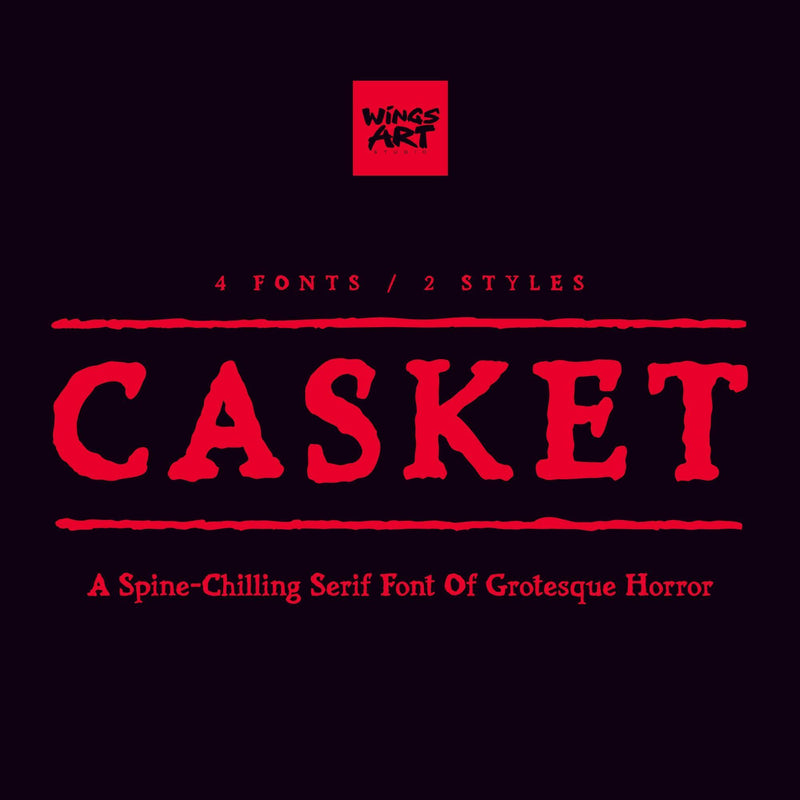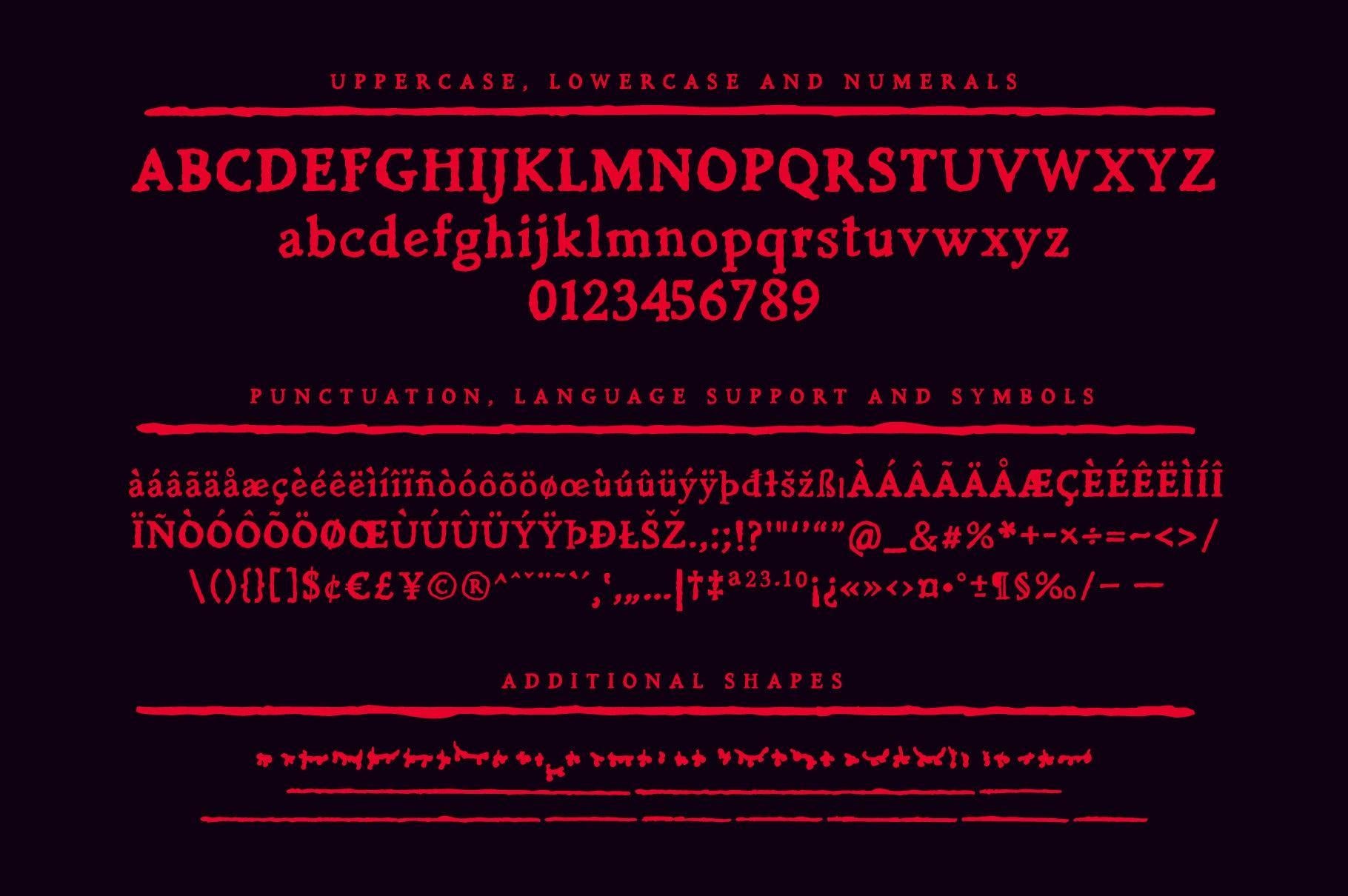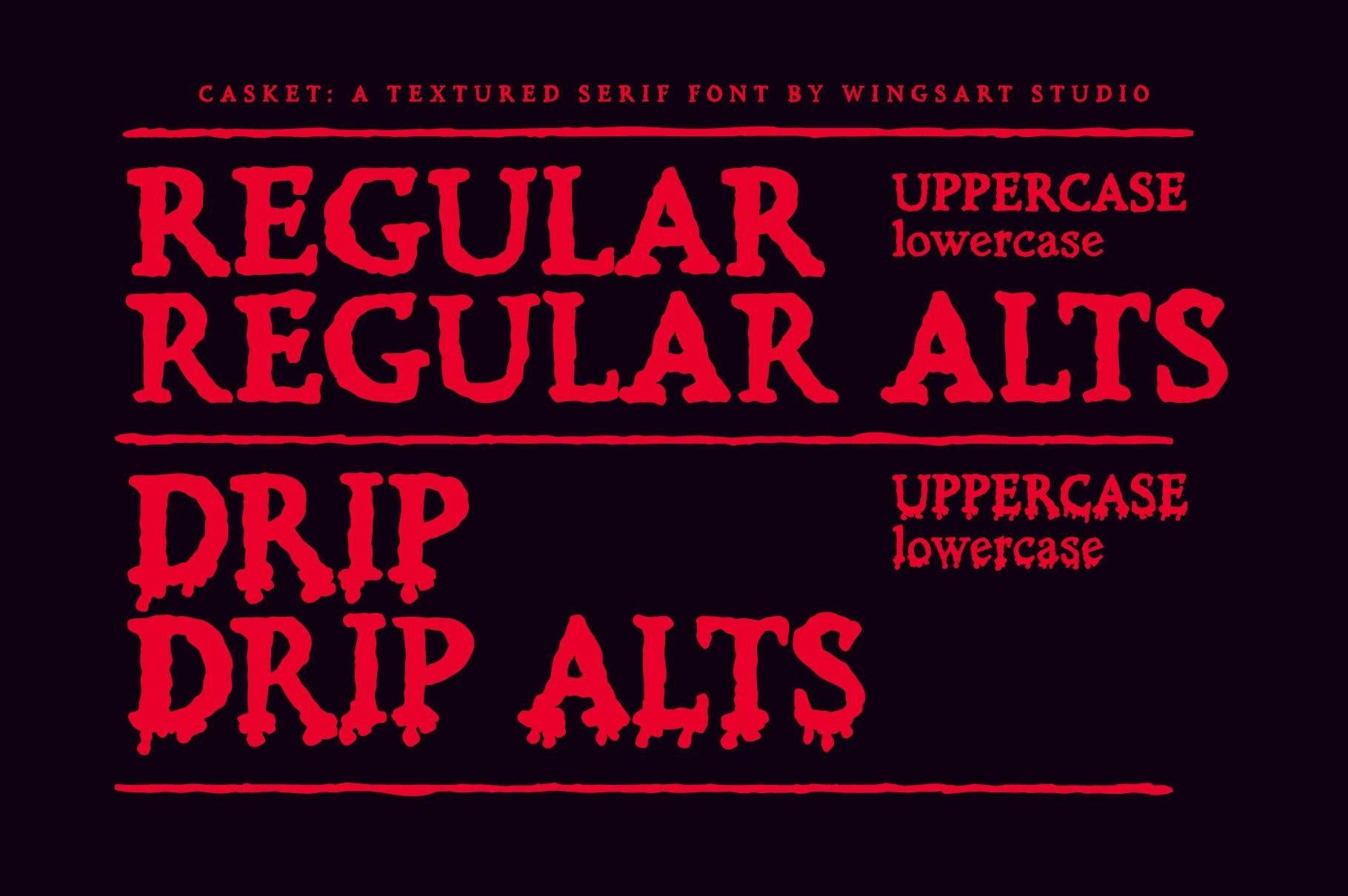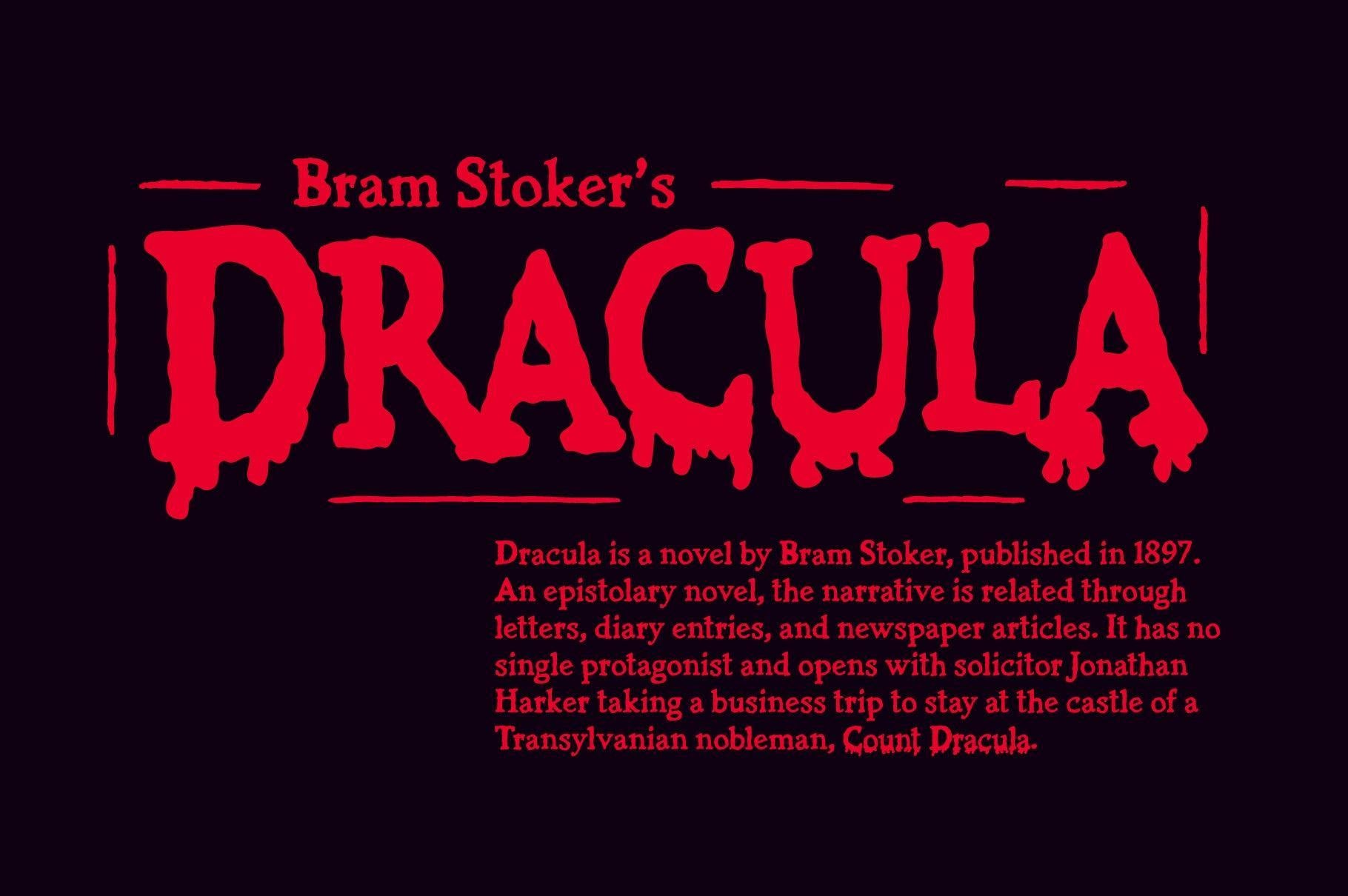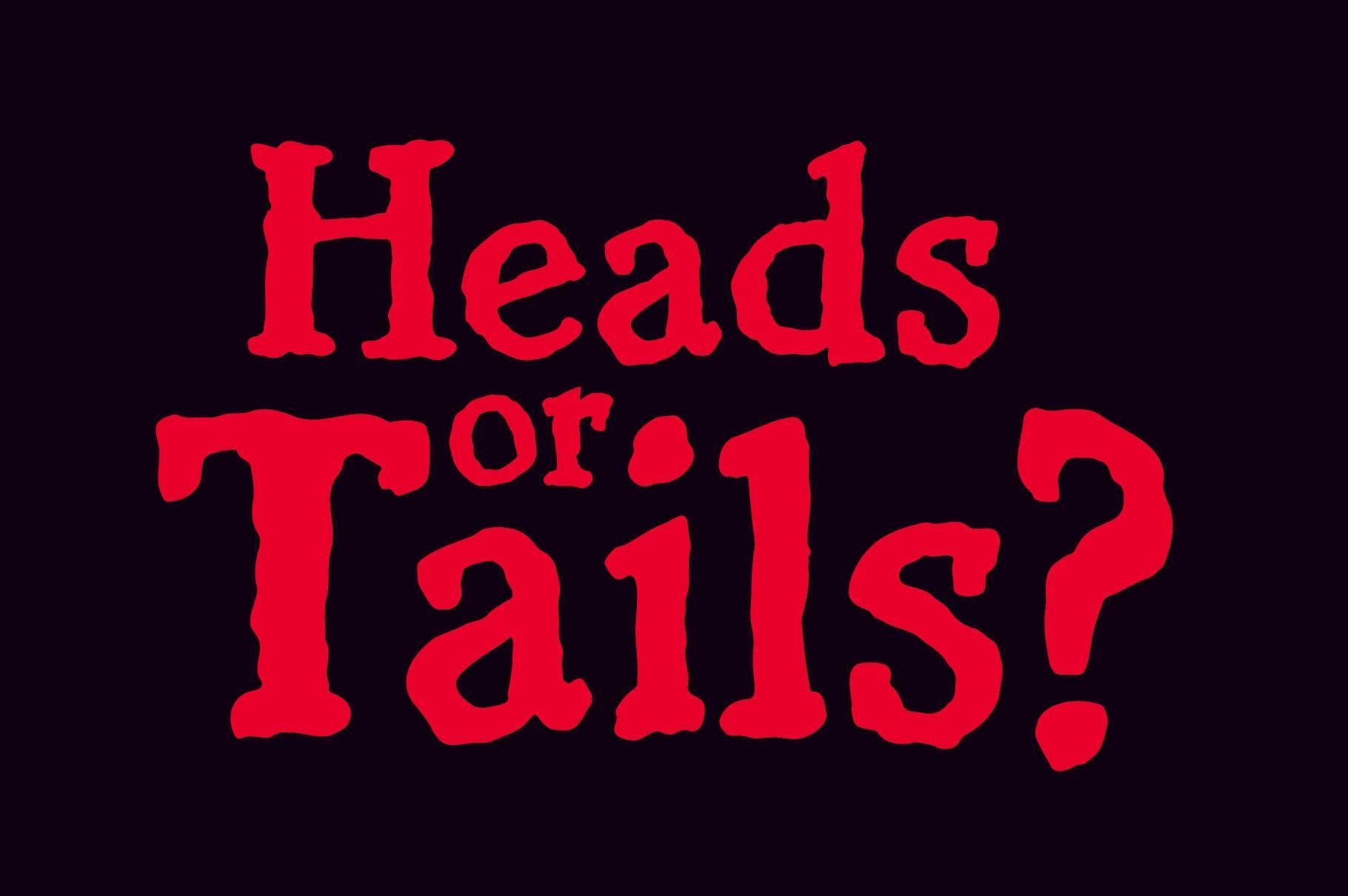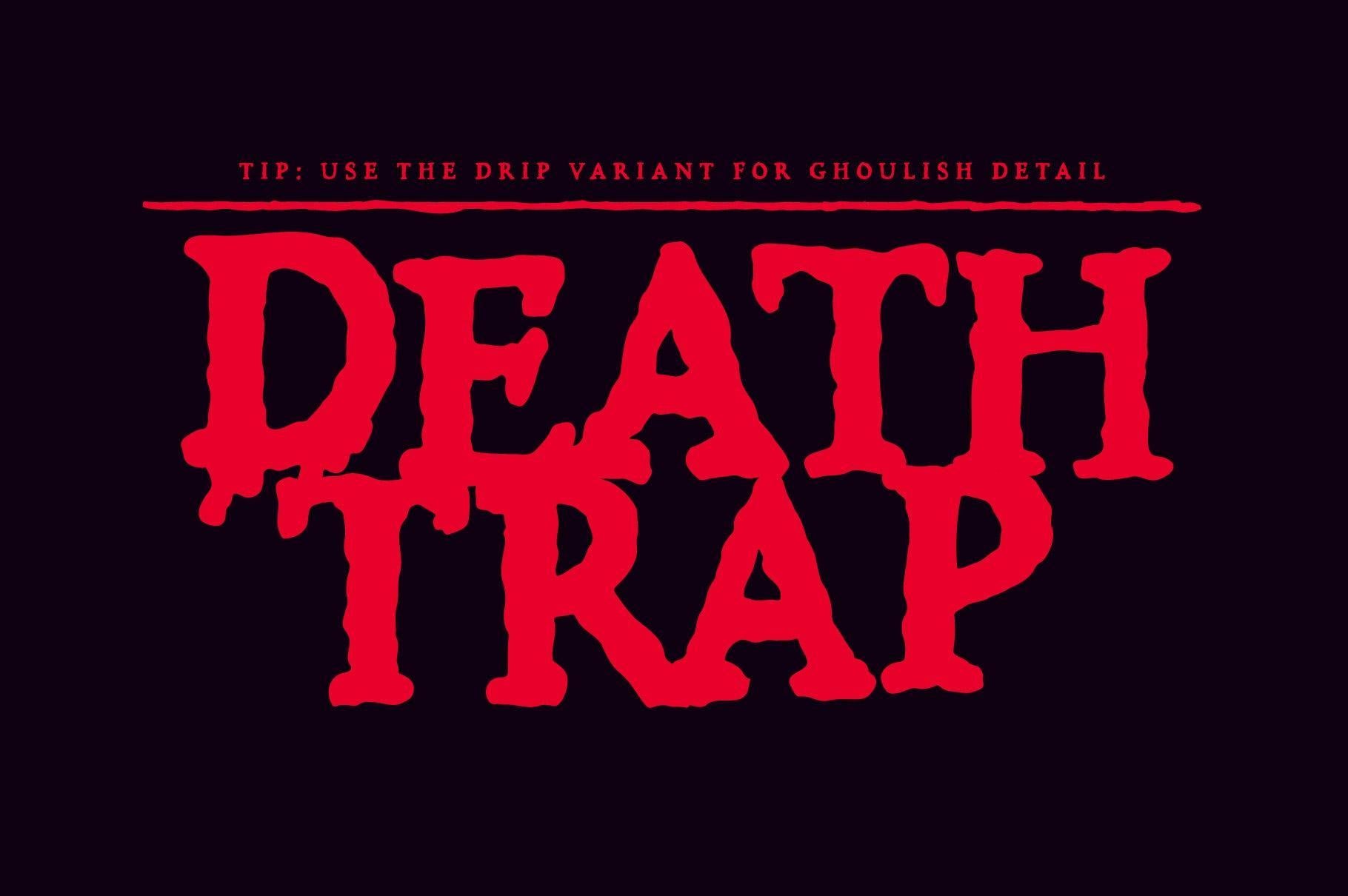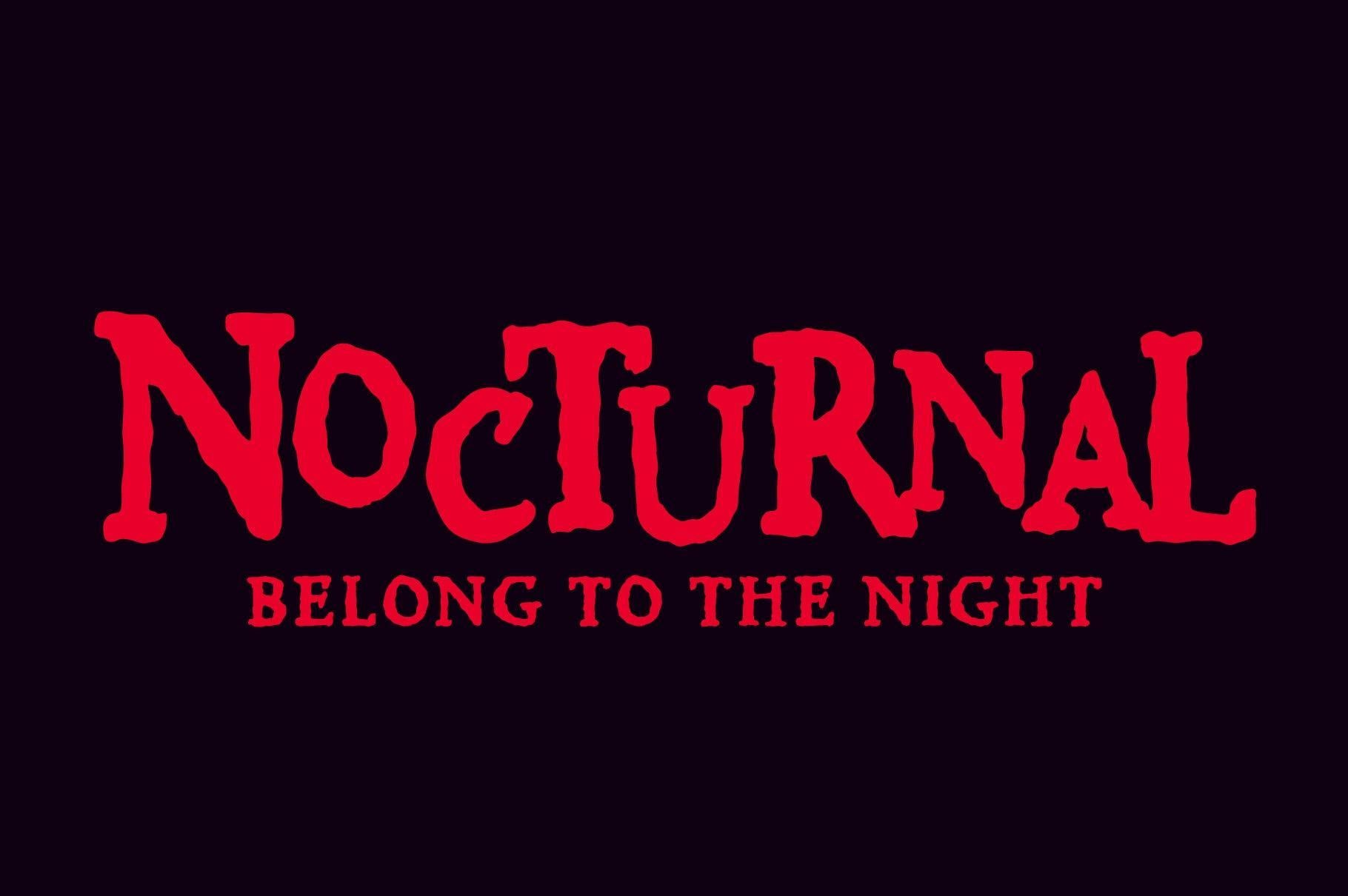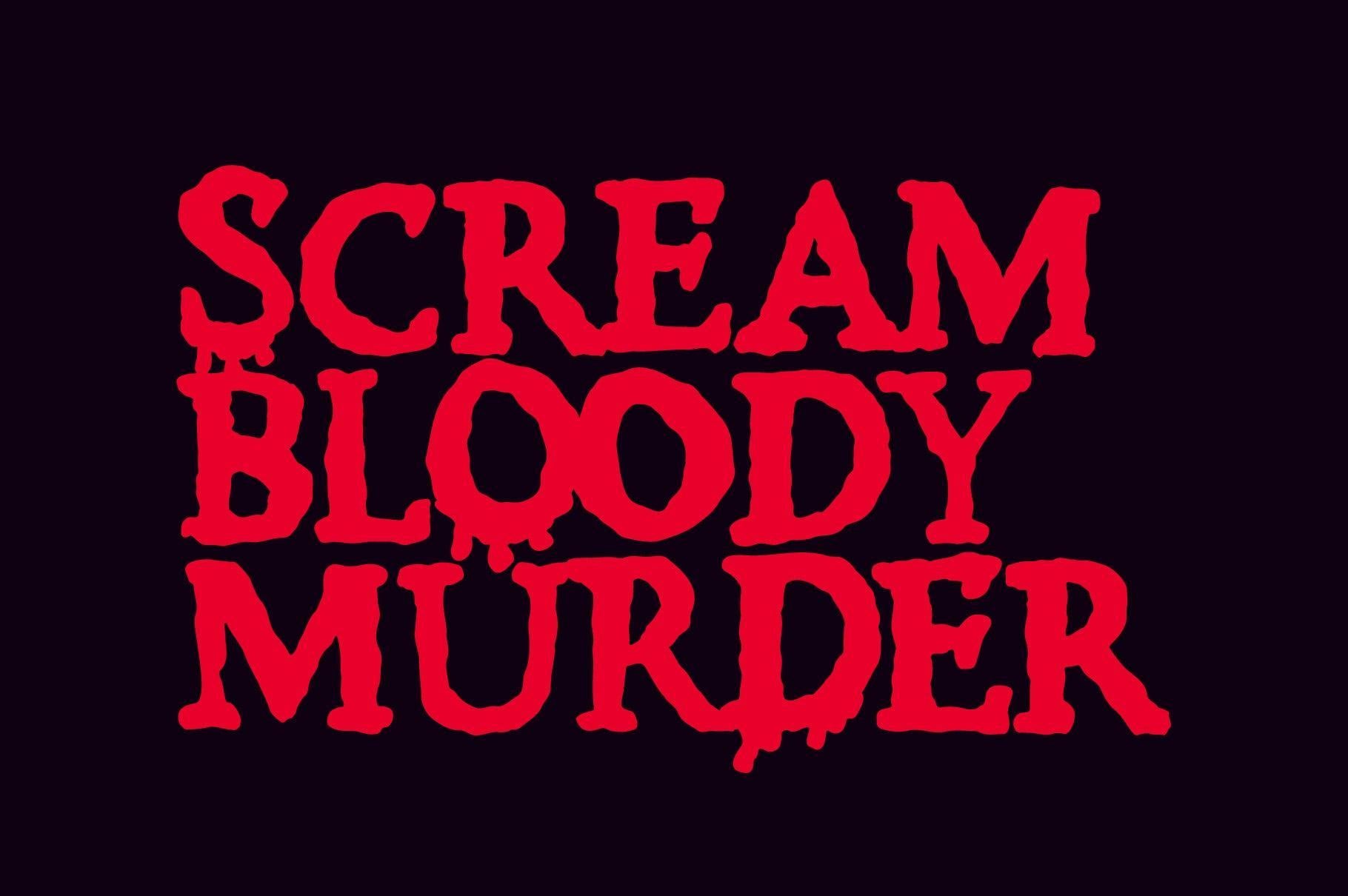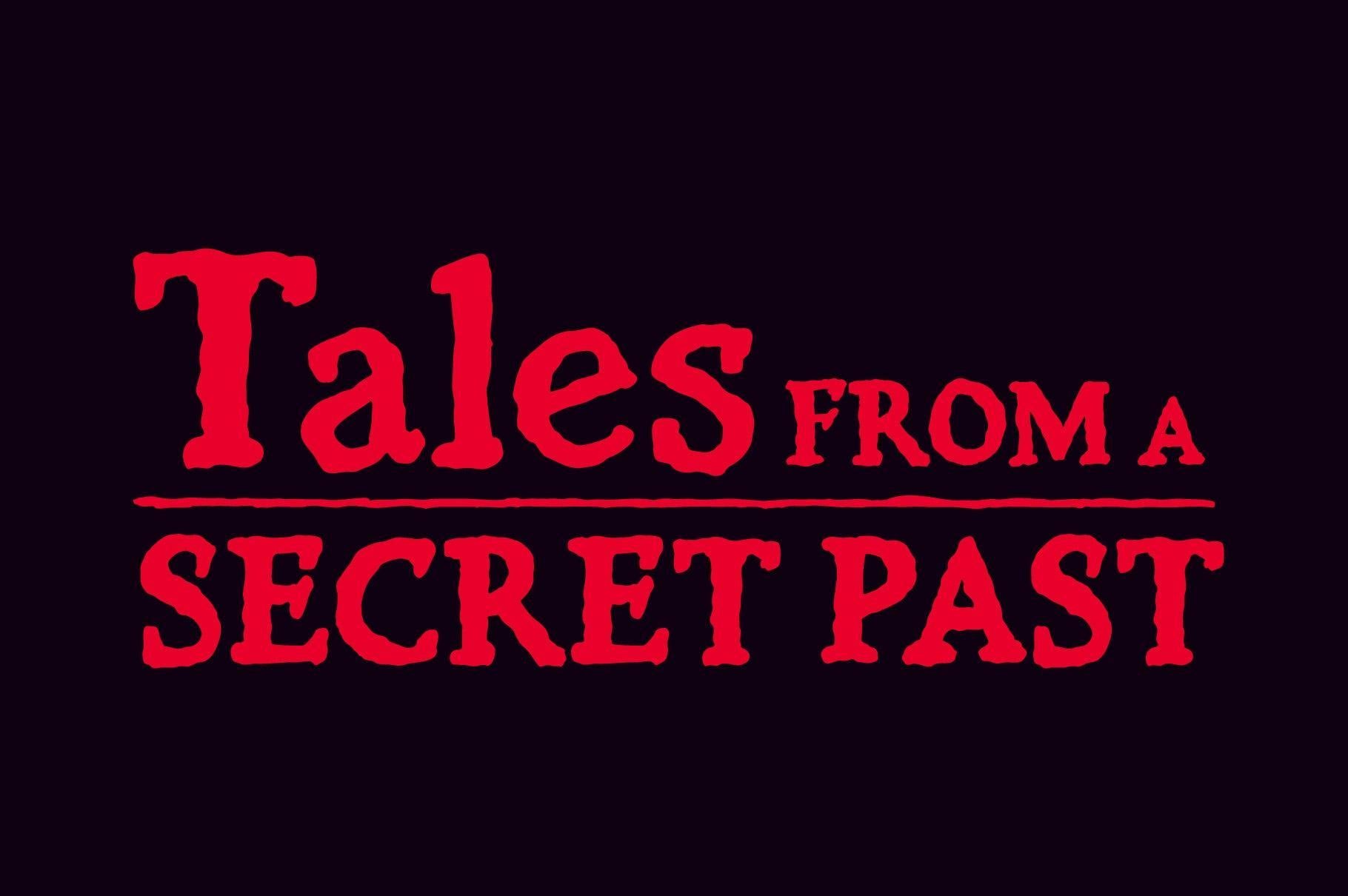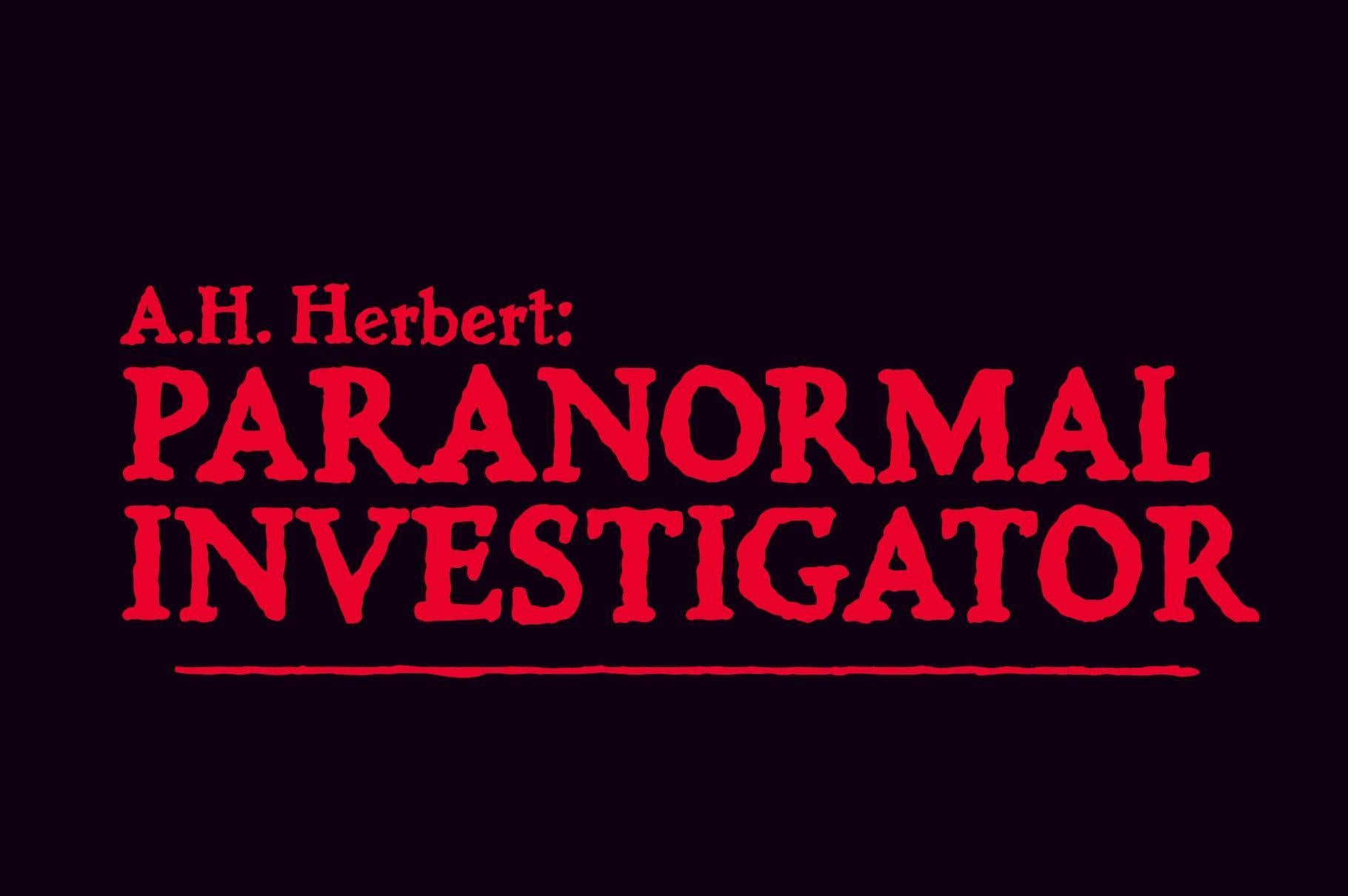
Casket - A Spine-Chilling Serif Font
Casket is a textured serif font designed with a gothic horror aesthetic, featuring a complete set of uppercase and lowercase characters, numerals, punctuation, and symbols. The font family includes a blood-soaked variant and offers a range of alternatives for each character, ensuring a unique and aged appearance suitable for various themes.
Ideal for gothic-inspired graphic design and horror-themed projects. Perfect for posters, book covers, branding, and album art, ensuring a unique, textured aesthetic that evokes a sense of mystery and nostalgia.